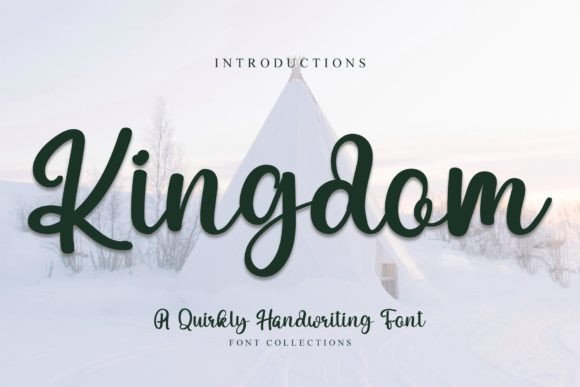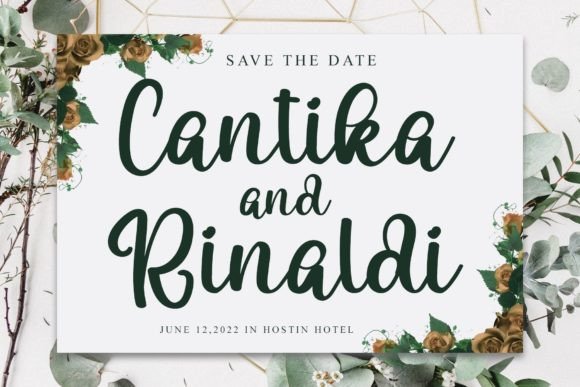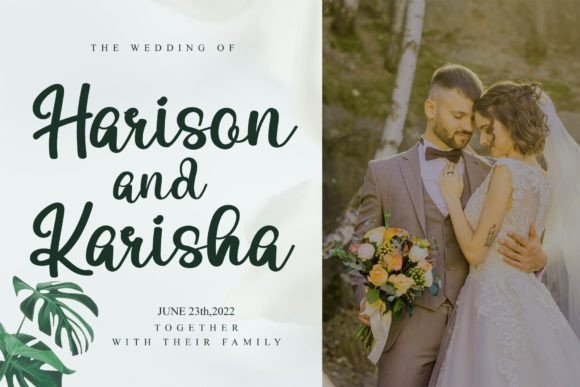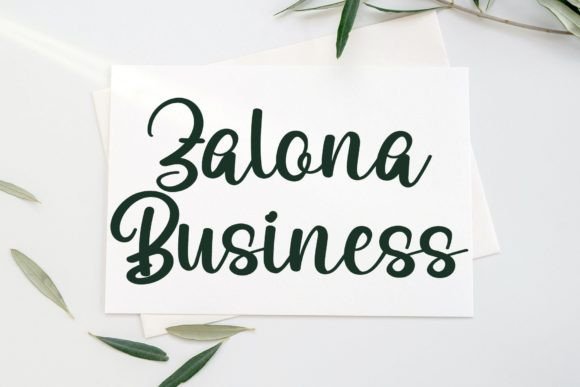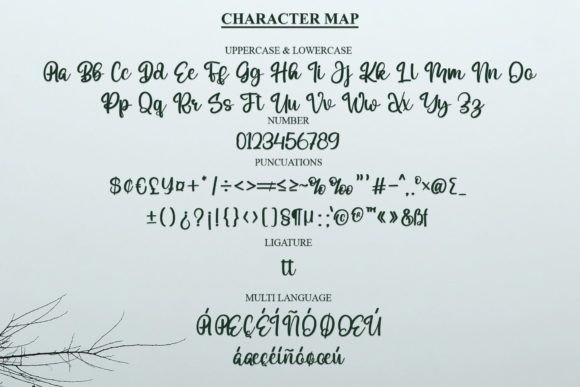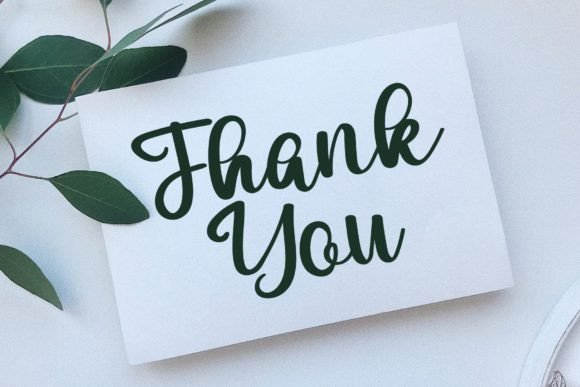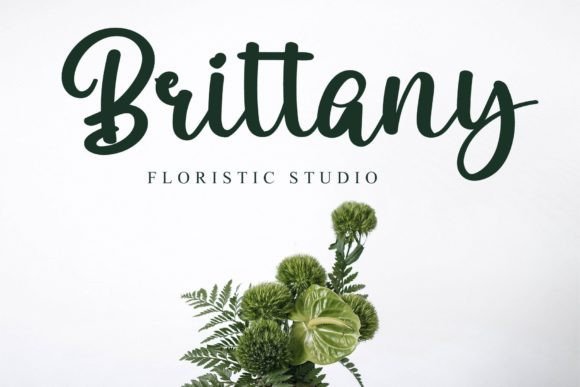
Kingdom Font
About Kingdom Font
Kingdom is a romantic and sweet handwritten font with characters that dance along the baseline. It will add a luxury spark to any design project you wish to create!